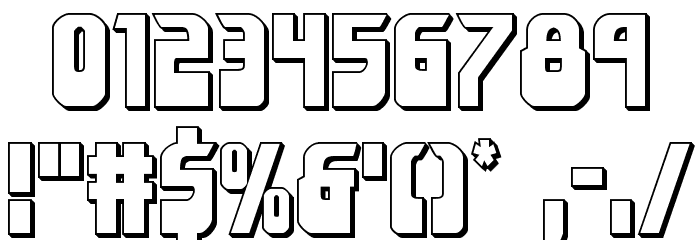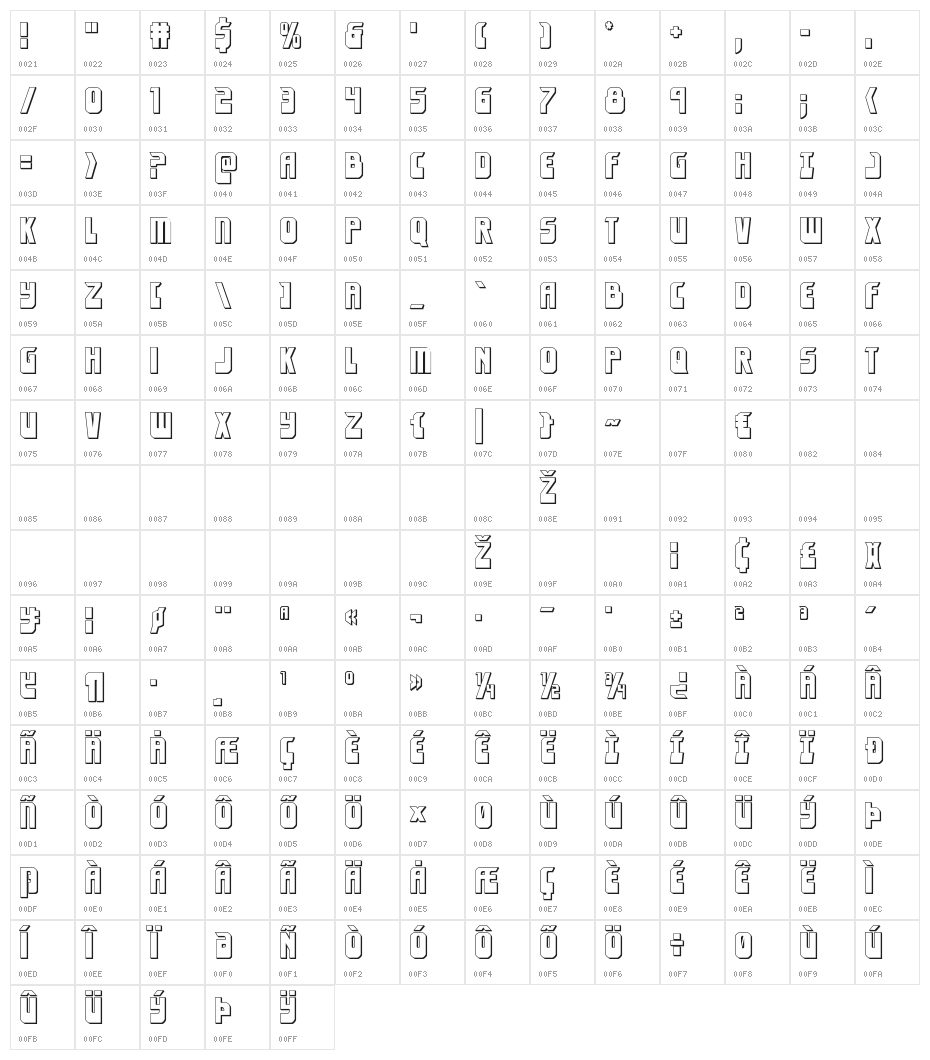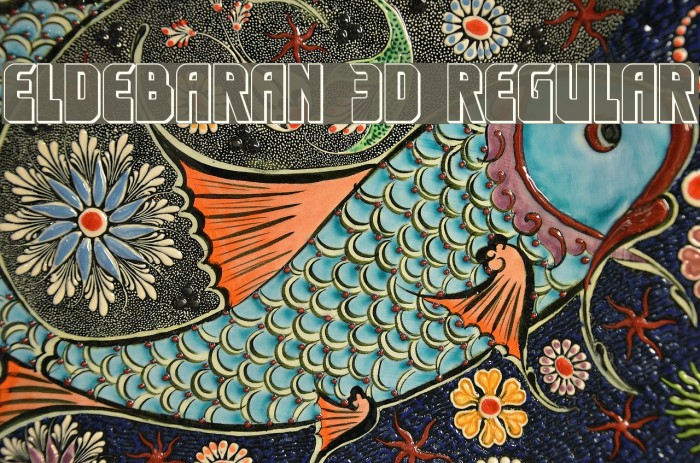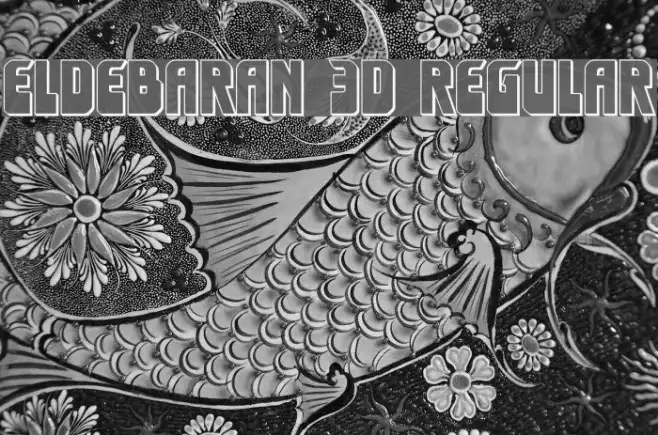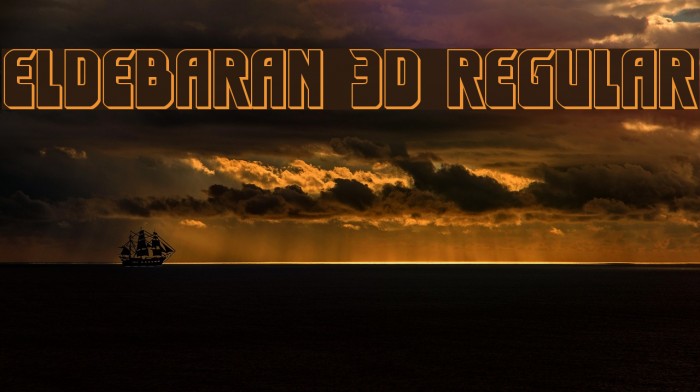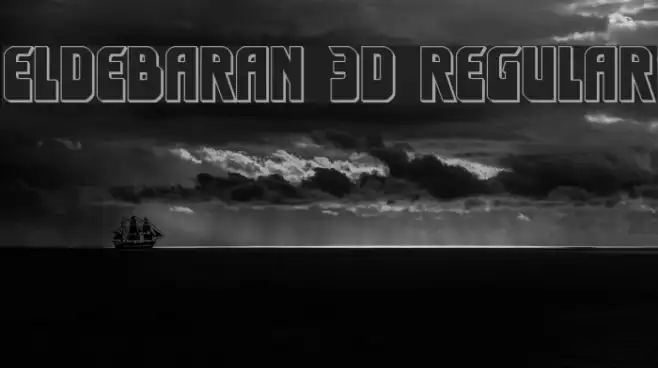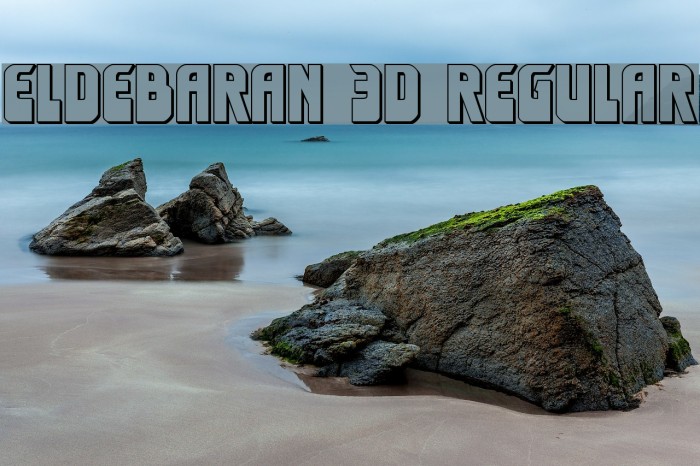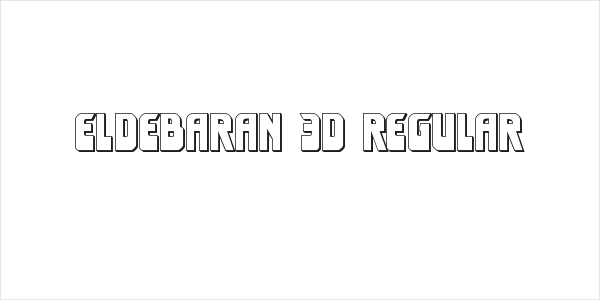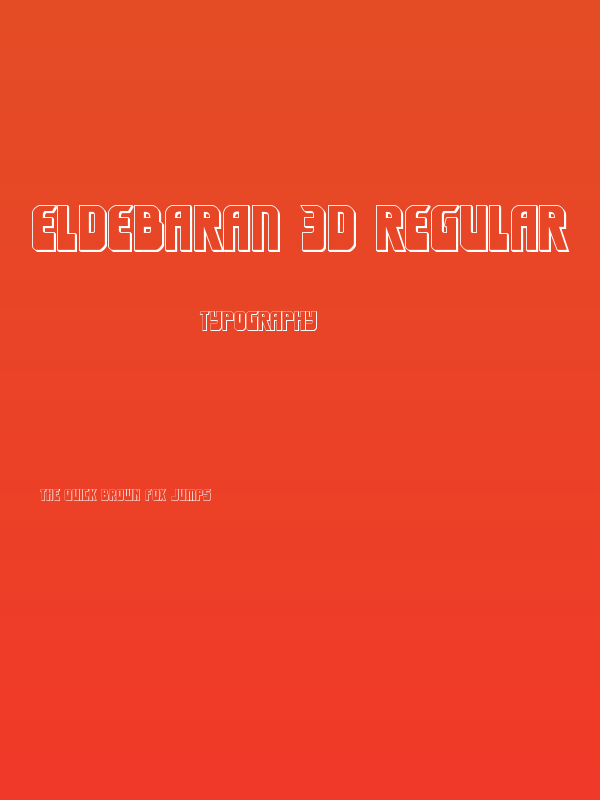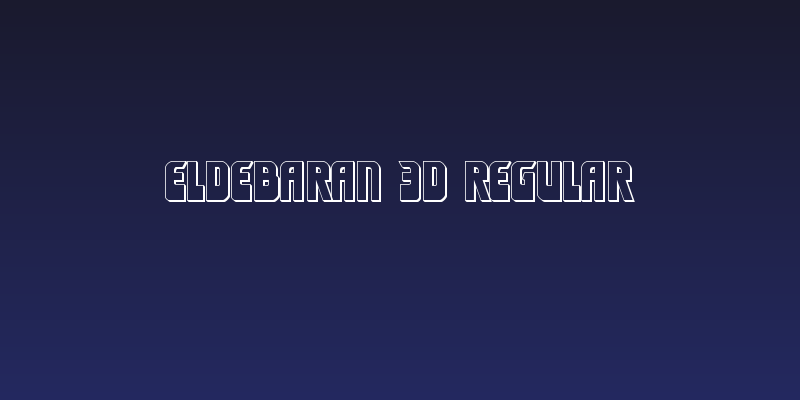
Eldebaran 3D Regular Font
Eldebaran 3D Regular Description
This font features a bold, three-dimensional design with a strong geometric influence. The characters are outlined with a thick border, giving them a distinct, blocky appearance. The uppercase letters are uniform in height, while the numbers and special characters maintain the same bold style. The font's 3D effect is achieved through the use of shadowing, which adds depth and dimension. This style is eye-catching and ideal for making a statement, with each character maintaining a consistent width and height, contributing to a cohesive and structured look.
| Proposed Projects | Ideal for posters, signage, video game graphics, and any project requiring a bold, attention-grabbing typeface. |